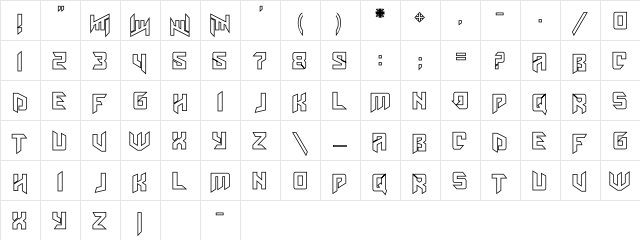
AmazObitaemOstrovOutline Regular
Design Context for AmazObitaemOstrovOutline Typeface
AmazObitaemOstrovOutline brings ornamental detail and strong personality to headlines and identities, where visual impact matters more than quiet functionality.
Font Pairing: Pair with a clean neutral sans-serif for body copy to let AmazObitaemOstrovOutline's character lead without overwhelming the composition.
Pro Tip: Treat AmazObitaemOstrovOutline as the centrepiece of your typographic hierarchy. One strong heading set in a decorative face can carry an entire layout.